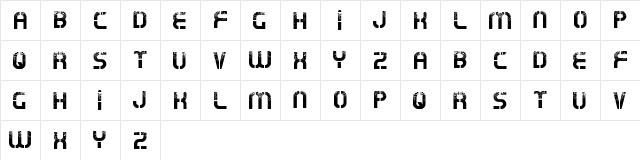
Oxin War
| Designer | Carlos Matteoli |
Design Context for Oxin Typeface
Oxin is a composed and adaptable typeface that performs quietly and consistently across a wide range of design contexts.